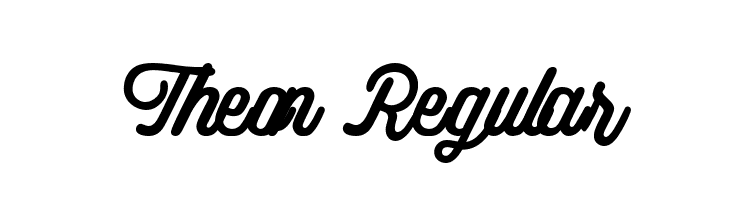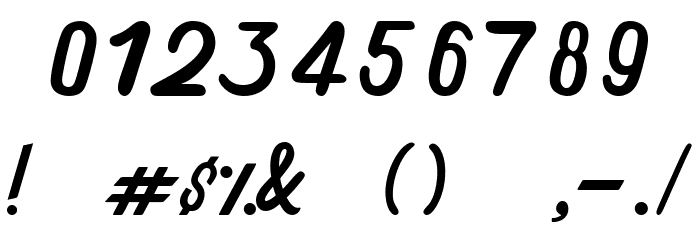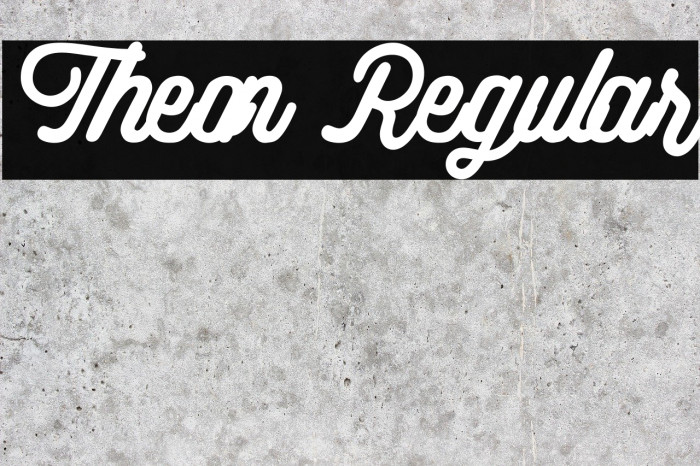
Theon Regular Font
Theon Regular Description
This font features a flowing, cursive style that combines elegance with readability. The characters are interconnected, creating a seamless and fluid appearance. The uppercase letters are slightly more ornate, with flourishes that add a touch of sophistication. The lowercase letters maintain a consistent height, contributing to a balanced look. The numerals are clear and distinct, ensuring legibility. Special characters are integrated smoothly, maintaining the overall aesthetic. This font is ideal for projects that require a personal, handwritten touch while retaining clarity.
A flowing, cursive font with elegant interconnected characters from Decorative fonts.
- Font: Theon Regular
by typotopia - Weight: Regular
- Proposed Projects: Ideal for wedding invitations, greeting cards, personal branding, and elegant packaging designs.
- Overall Style: Elegant
- Use Case: Logos, Invitations, Personal Branding